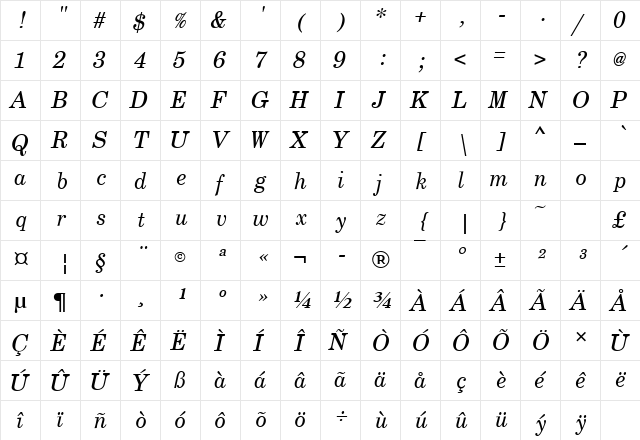
Boldface Becker Italic
Design Context for Boldface Becker Typeface
Boldface Becker offers clean, dependable letterforms without strong stylistic allegiance, making it a practical choice for designers who need flexibility. The slanted form adds forward momentum and visual energy. Its bold stroke weight gives it real presence on the page.
Pro Tip: Use Boldface Becker for emphasis, pull quotes, and subheadings where its slanted energy can add rhythm to the layout.